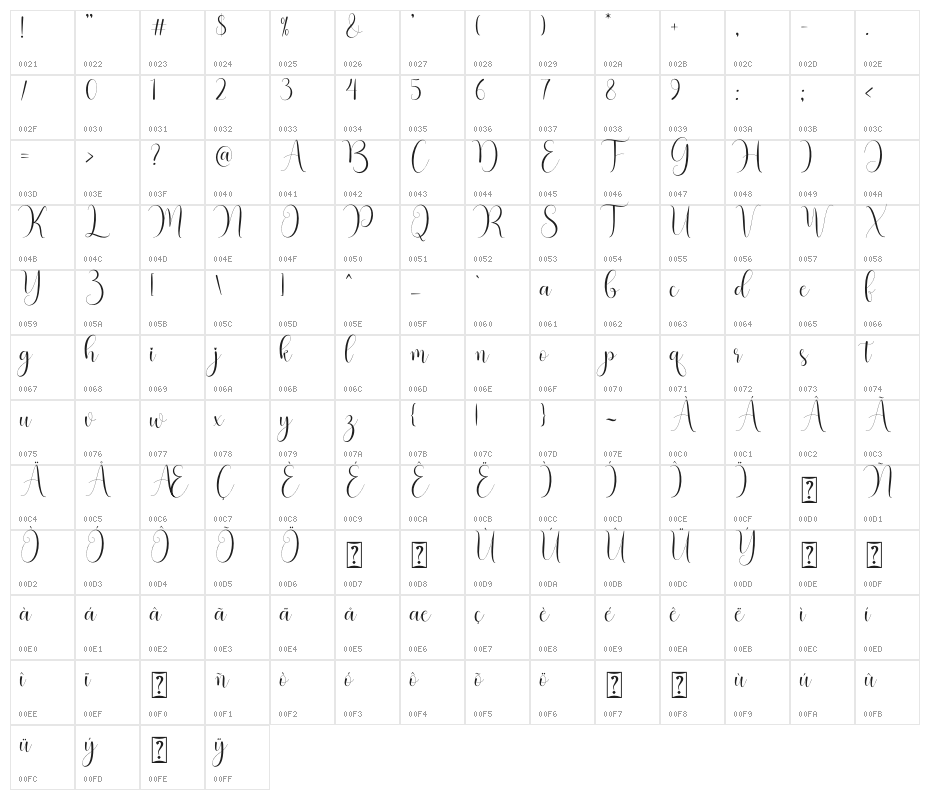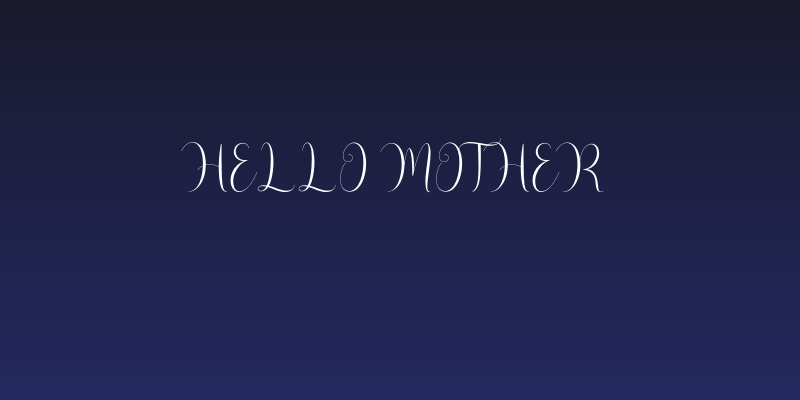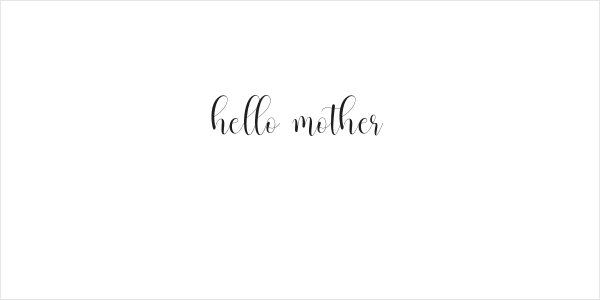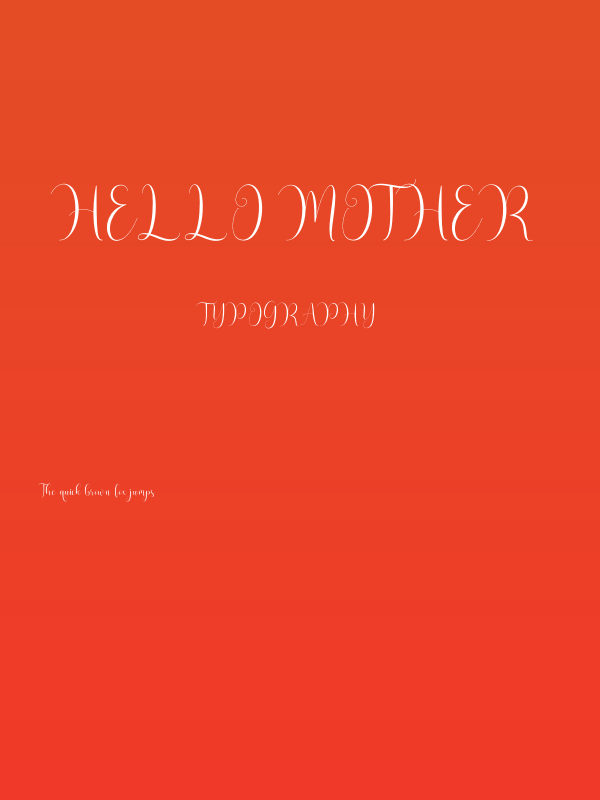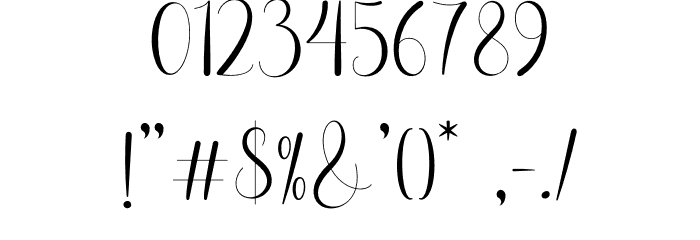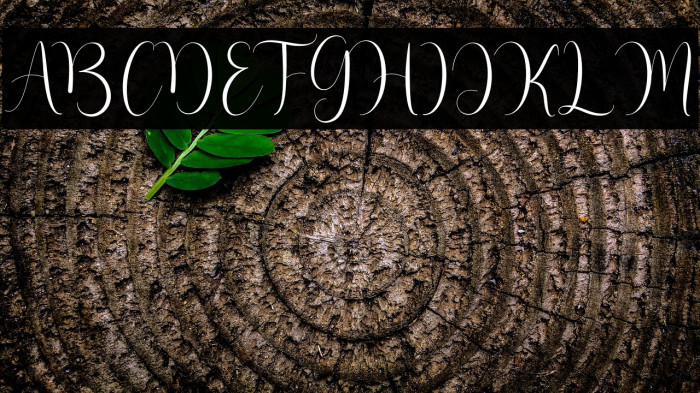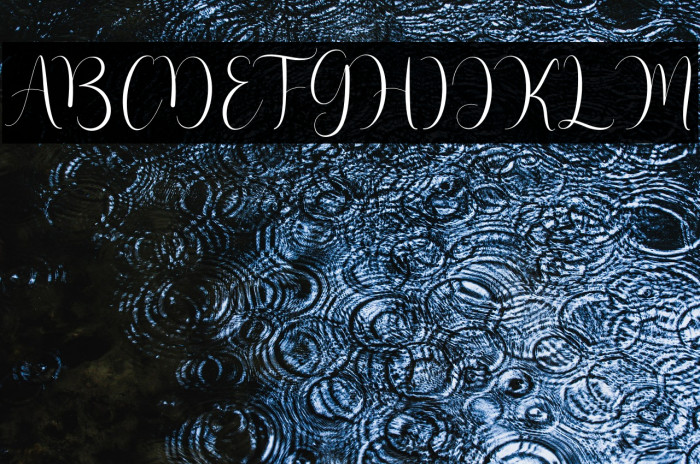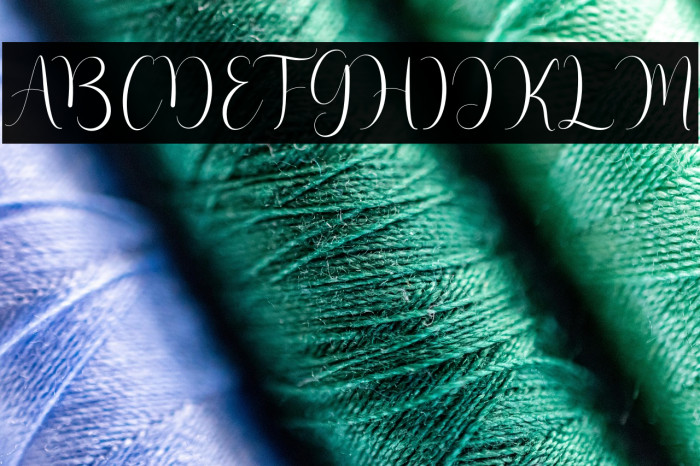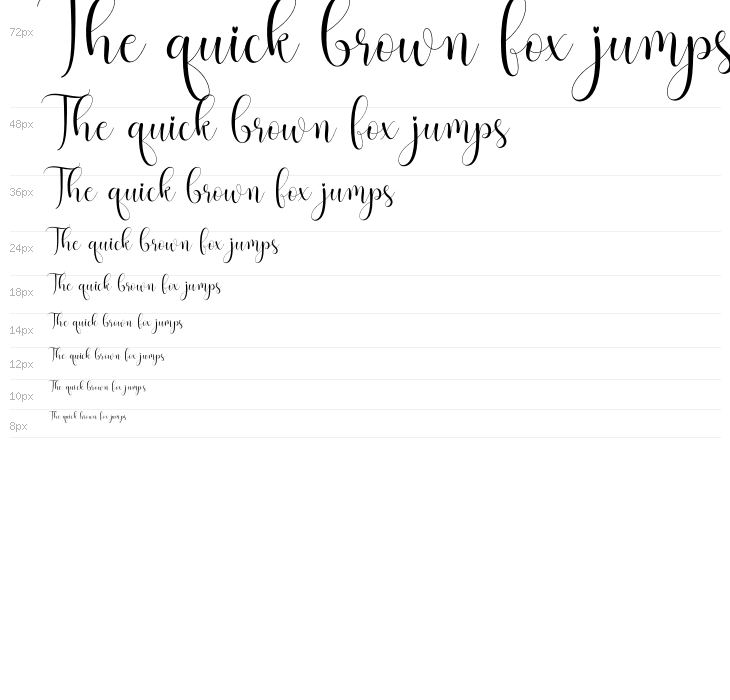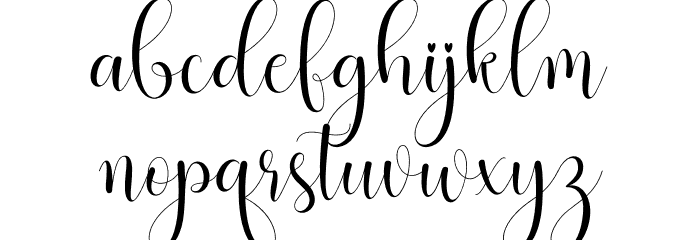
hello mother Font
hello mother Description
This elegant script font features flowing, cursive letterforms with high contrast between thick and thin strokes. The uppercase letters are particularly ornate, with sweeping flourishes that add a touch of sophistication and grace. The lowercase letters maintain a consistent style, with smooth curves and loops that enhance readability while retaining an artistic flair. Numbers and special characters are designed to complement the overall aesthetic, making this font suitable for a variety of decorative applications. The font's delicate and refined appearance makes it ideal for formal invitations, branding, and other projects where a touch of elegance is desired.
| Use Case | Invitations, Branding, Decorative Headlines |
| Proposed Projects | Ideal for wedding invitations, elegant branding, greeting cards, and decorative headlines. |